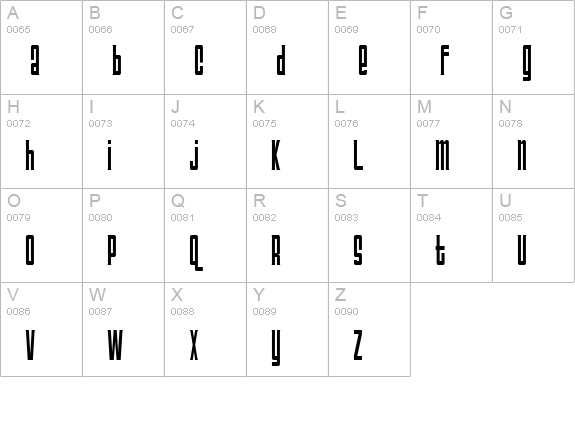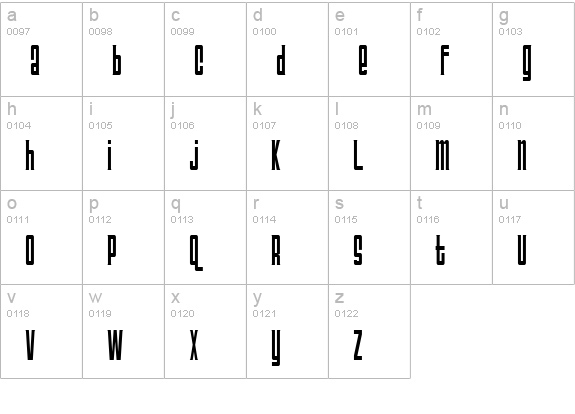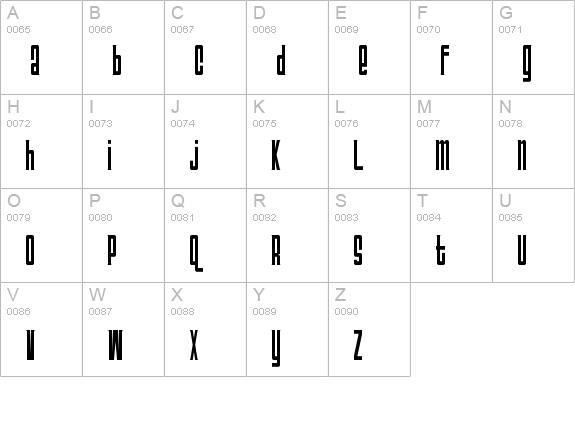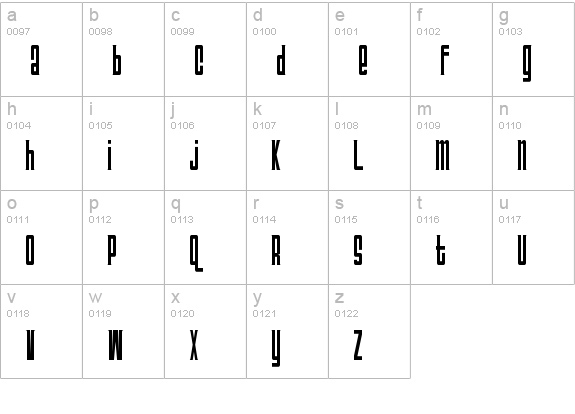
TriacSeventyone Font Details
TriacSeventyone is a stunning and versatile font that effortlessly blends elegance with a touch of modernity. Its clean lines and smooth curves make it a perfect choice for a wide range of design projects, from branding and logos to packaging and invitations. The font features a unique combination of rounded edges and sharp angles, giving it a distinctive and eye-catching appearance. What sets TriacSeventyone apart is its incredible versatility. Whether you're aiming for a sophisticated and refined look or a bold and dynamic design, this font can adapt to any style with ease. Its wide range of weights and styles allows you to experiment and create captivating compositions that will captivate your audience. One of the most appealing aspects of TriacSeventyone is that it is available for free download at FontsMarket.com. This means that you can easily access this beautiful font without any cost, making it an even more attractive option for designers, entrepreneurs, and creatives on a budget. With its clean and balanced letterforms, TriacSeventyone ensures optimal legibility even at smaller sizes, making it suitable for both print and digital projects. Its versatility extends to different platforms, allowing you to use it seamlessly across various mediums, including websites, social media, and mobile applications. In addition to its aesthetic appeal, TriacSeventyone also boasts excellent readability, making it an ideal choice for body text, headlines, and captions. Its unique design elements and attention to detail make it stand out from the crowd, adding a touch of sophistication and class to any design project. If you're looking to elevate your designs and make a lasting impression, TriacSeventyone is the perfect font to add to your collection. Its modern yet timeless aesthetic, combined with its versatility and availability as a free download at FontsMarket.com, make it a must-have for any designer or creative seeking a high-quality font that effortlessly combines style and functionality.